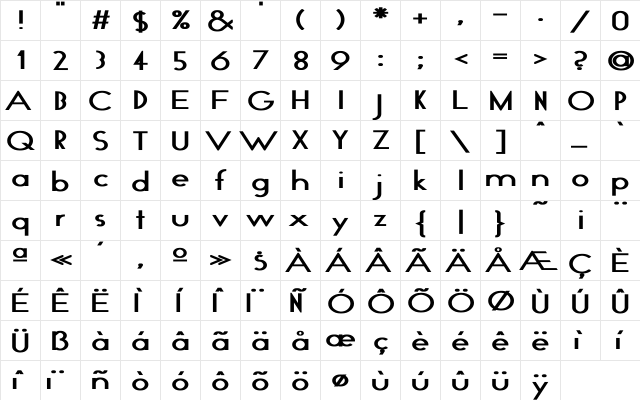
GeoPlain Wd Bold Bold Font Preview
GeoPlain Wd Bold Bold
GeoPlain Wd Bold Bold Font Details
Design Context for GeoPlain Wd Bold Typeface
GeoPlain Wd Bold takes a measured approach to typography — its balanced proportions and neutral character make it a reliable workhorse for both digital and print work. The heavy weight commands attention and anchors typographic hierarchies.